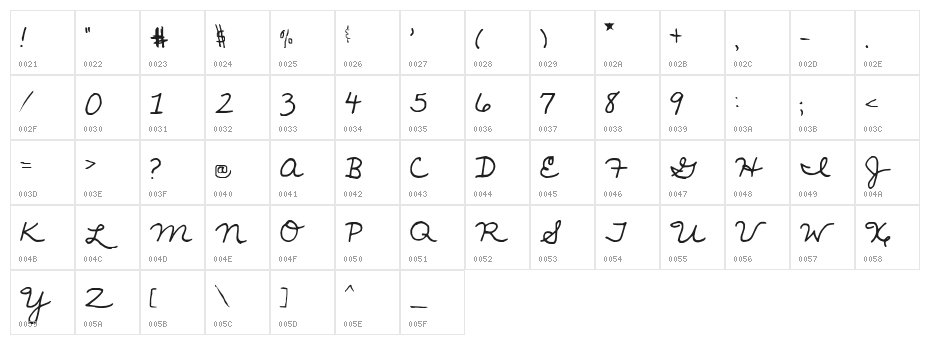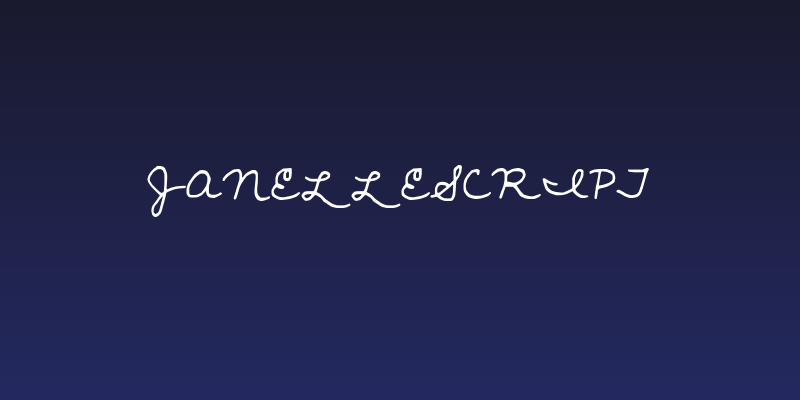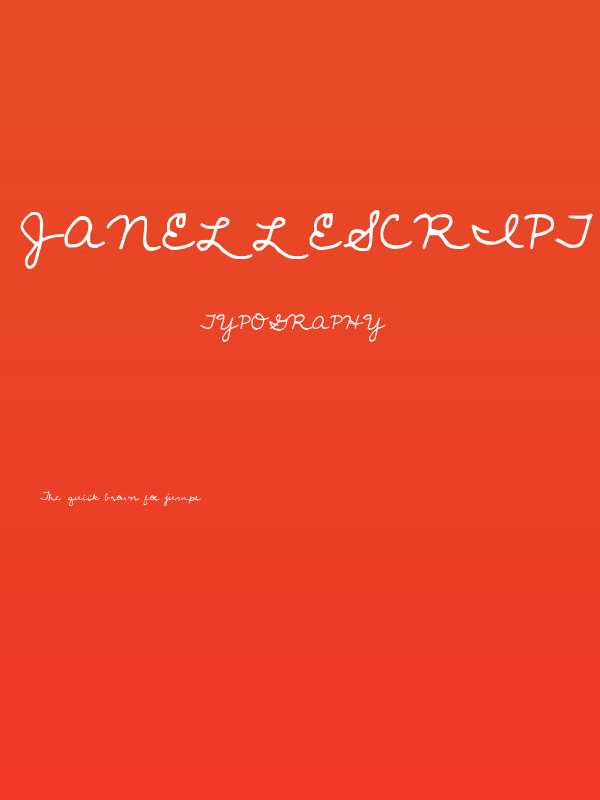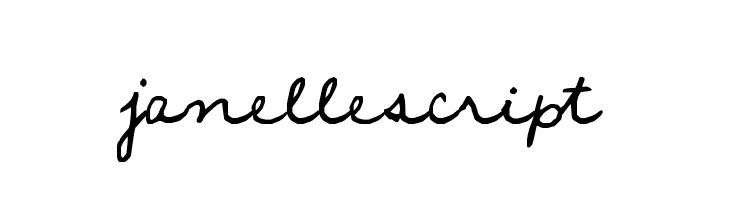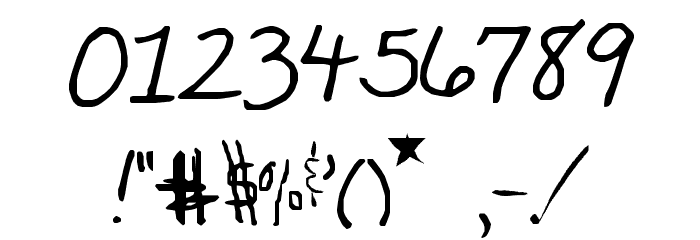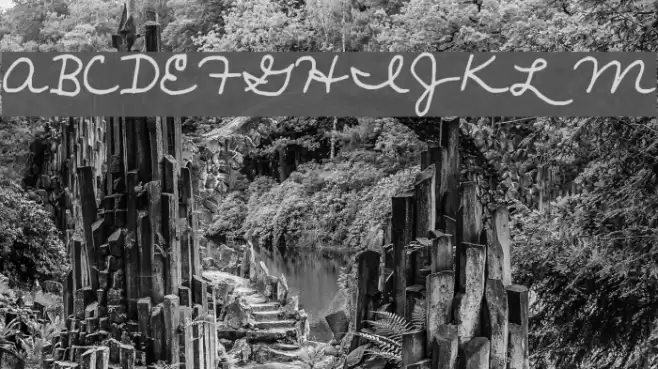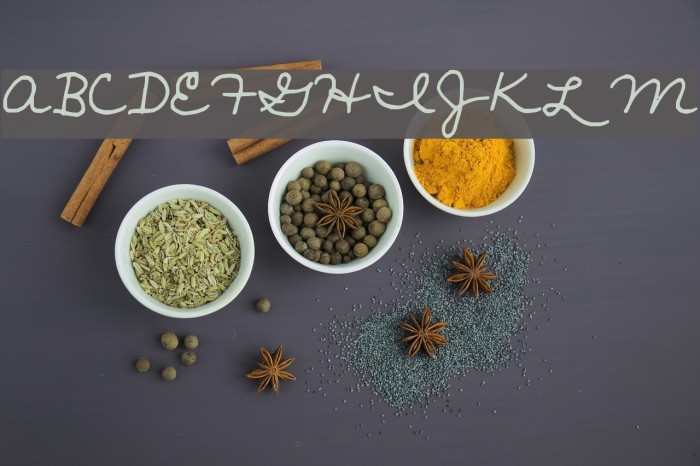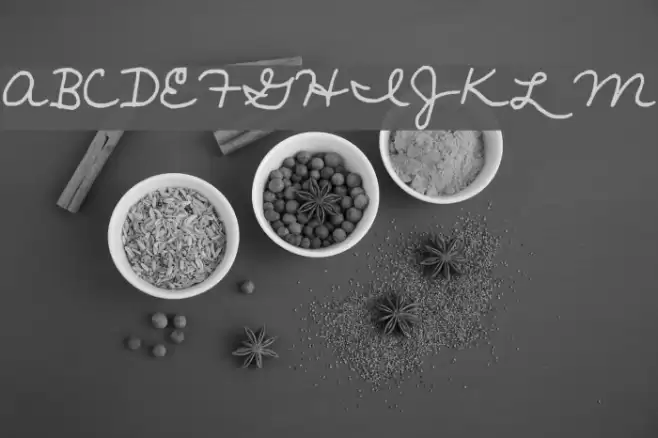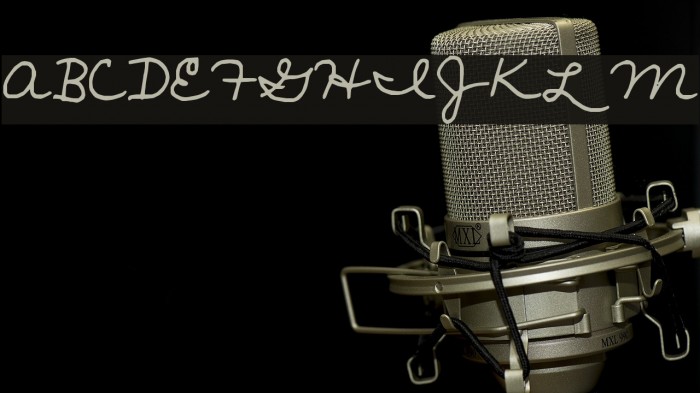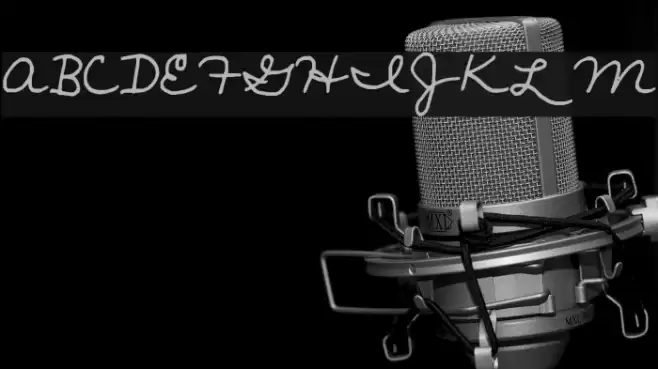
janellescript Font
janellescript Description
This font exudes a casual, handwritten style with a fluid and natural flow. The characters are connected, mimicking the look of cursive handwriting. The uppercase letters maintain a consistent height, while the lowercase letters feature a slight slant, enhancing the handwritten feel. The numbers are clear and legible, maintaining the same casual style. Special characters are well-integrated, adding to the font's versatility. The overall appearance is friendly and approachable, making it suitable for projects that require a personal touch.
| Overall Style | Casual |
| Use Case | Logos, Invitations, Greeting Cards |
| Proposed Projects | Ideal for personal invitations, greeting cards, and informal branding projects. |